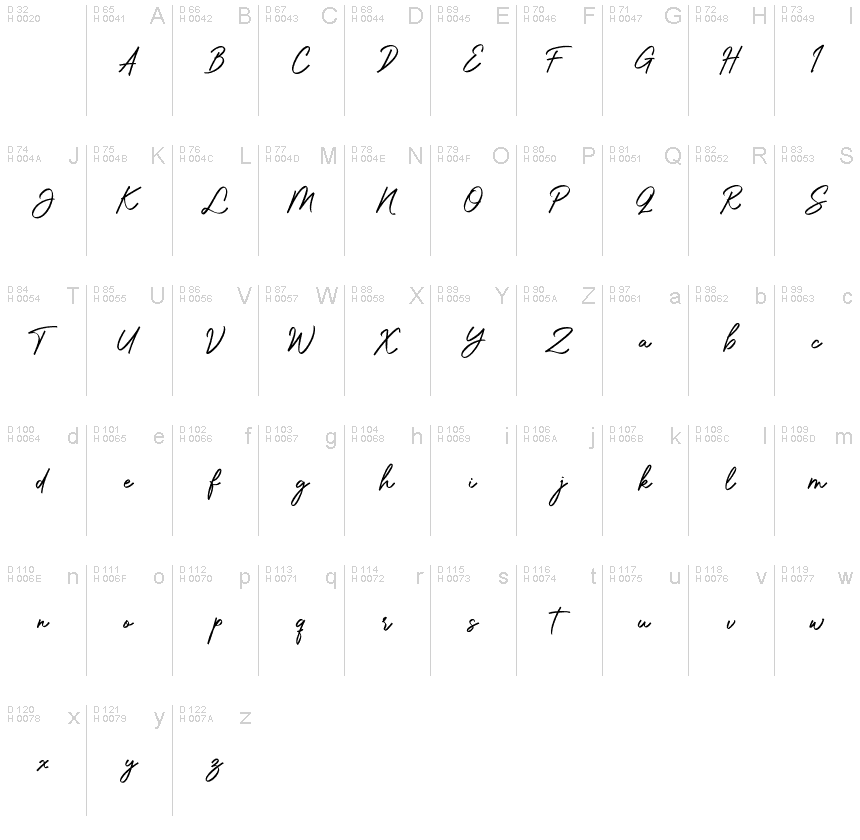
CostarichDEMO
Costarich is a charming handwritten font designed by the talented Mario Davin. With its semi-light weight, Costarich is perfect for adding a personal touch to your projects. Use it to create eye-catching logos, invitations, or social media graphics that will stand out from the crowd. Its playful and informal style makes it ideal for children's books or whimsical designs, while its elegant curves suit more sophisticated projects like wedding invitations or luxury branding. Let Costarich be your go-to font for any project that requires a touch of creativity and personality!